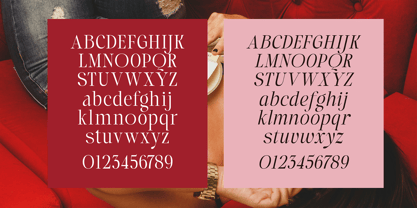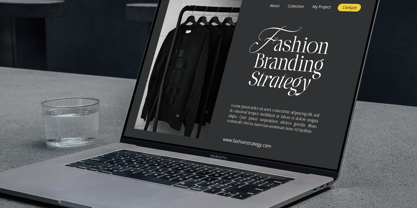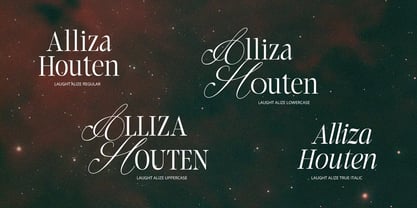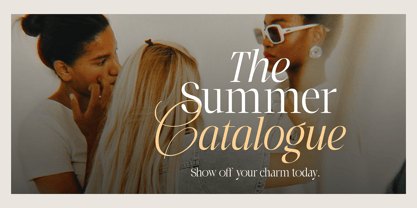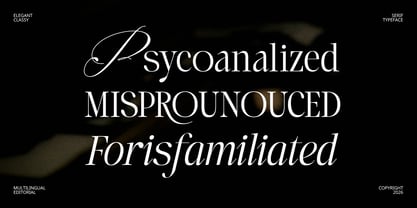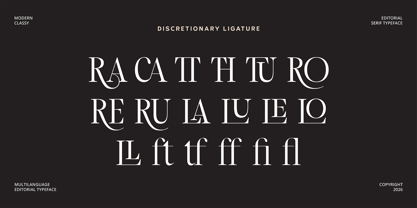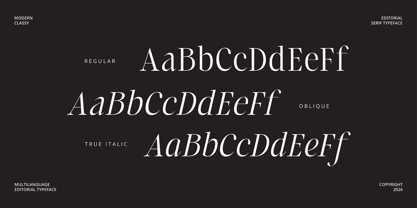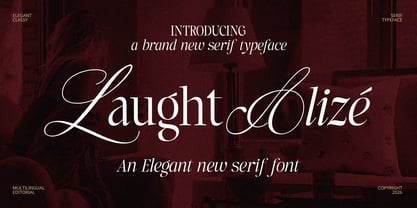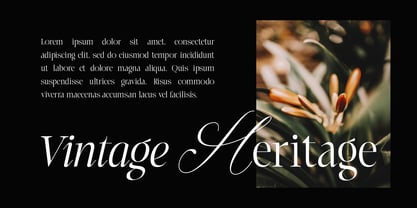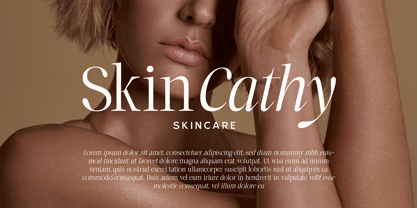
Laught Alize
The Laught Alize Font Family was designed by Heri Juniawan and published by Godbless Studio. Laught Alize contains 4 styles and family package options. More about this family
An Elegant Serif with a Timeless Character
Refined, sophisticated, and effortlessly graceful, this serif typeface is designed to bring a sense of elegance and timeless luxury to every composition. Its carefully crafted proportions, high-contrast details, and graceful curves create a distinctive typographic voice that feels equally at home in contemporary fashion, luxury branding, editorial design, and refined visual identities.
The family includes Regular, Oblique, and True Italic styles, providing a natural range of expression from clean and sophisticated to expressive and graceful. Complementing the core serif styles is a collection of alternative script-inspired characters, allowing you to introduce a more personal, fluid, and distinctive touch to headlines, logos, invitations, packaging, and display typography.
Designed with both beauty and versatility in mind, this typeface balances classical serif aesthetics with a modern sensibility. Whether used for an elegant brand identity, a sophisticated editorial layout, a fashion campaign, or a memorable logotype, it brings a polished and luxurious character to every word.
Elegant by nature. Distinctive by design. Timeless by character.